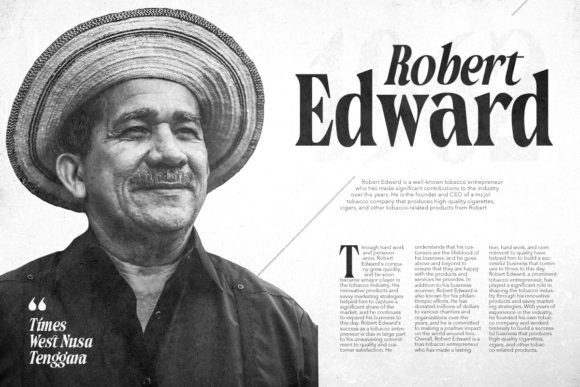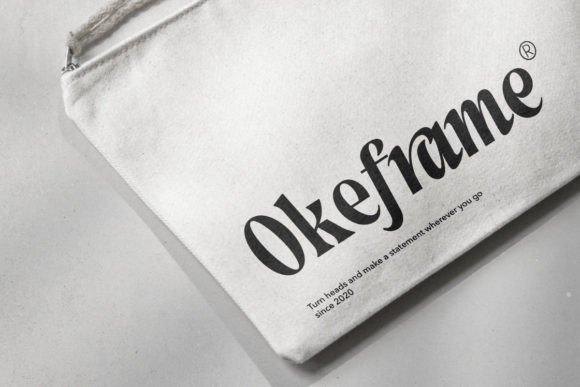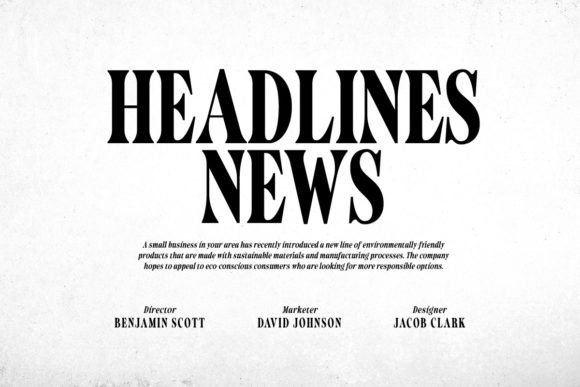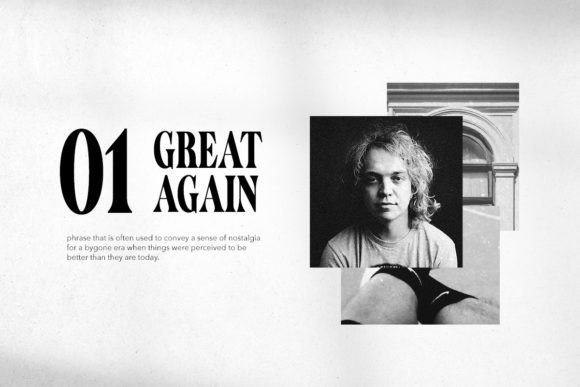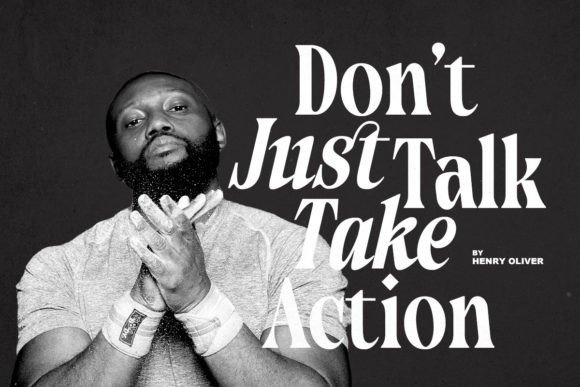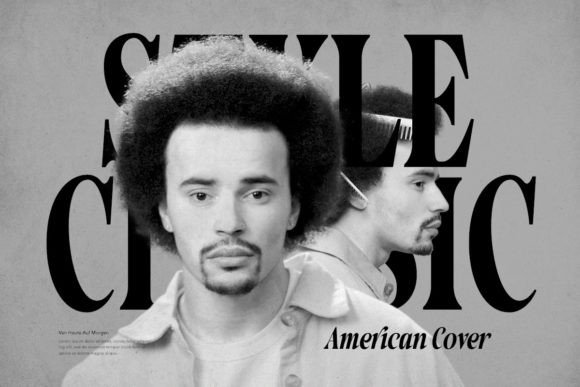
Have you ever stared at a blank page, feeling like your project is missing that extra oomph? The spark that ignites creativity and sets your design apart from the rest? For designers, this moment is a familiar one – the thrill of bringing a concept to life. And when it comes to making a statement, the right font can be the difference between bland and breathtaking.
Enter Autograde – Strong Bold Serif Font, a powerful tool designed to take your presentations, logos, and social media posts to the next level. With its strong, bold, and chic style, Autograde is the perfect companion for any creative project. Its versatility in supporting multiple languages makes it an invaluable asset for designers looking to connect with diverse audiences. By incorporating Autograde into your design, you’ll be able to craft a stunning visual identity that commands attention and leaves a lasting impression.
Autograde – Strong Bold Serif Font Key Features
- Font Family: Autograde is a strong, bold serif font designed for headlines and titles.
- Unique Characteristic: Autograde features a distinctive, bold serif design with subtle flair on the terminals, making it stand out in modern typographic contexts.
- Language Support: Supports a wide range of languages, including Latin, Cyrillic, and Greek scripts, making it a versatile choice for global designs.
Autograde – Strong Bold Serif Font Review
As a designer, I was excited to dive into Autograde – Strong Bold Serif Font and see what it had to offer. Overall, I’d say it’s a solid choice for any project that needs a bold, attention-grabbing font. Here’s what works well:
- ✨ **Readability**: Autograde is incredibly legible, even at smaller font sizes. The bold strokes and clean lines make it perfect for headings and titles.
- ✨ **Versatility**: This font works well in a variety of contexts, from modern websites to traditional print materials. Its versatility makes it a great choice for designers who want a font that can adapt to different styles.
- ✨ **Expressiveness**: Autograde has a lot of character, which makes it perfect for designers who want to add a bit of personality to their work.
- ⚠️ **Limited language support**: While Autograde supports a wide range of languages, it’s not perfect. Some characters may not display correctly, which can be a problem for designers working with languages that require specific characters.
- ⚠️ **Not suitable for body text**: While Autograde is perfect for headings and titles, it’s not the best choice for body text. The bold strokes can make it difficult to read at smaller font sizes.
Overall, I’d say Autograde is a great choice for designers who want a bold, attention-grabbing font. While it’s not perfect, its readability, versatility, and expressiveness make it a solid addition to any design toolkit.
The Autograde – Strong Bold Serif Font is ideal for:
1. Headings and titles.
2. Emphasizing important information.
3. Creating a strong visual impact.